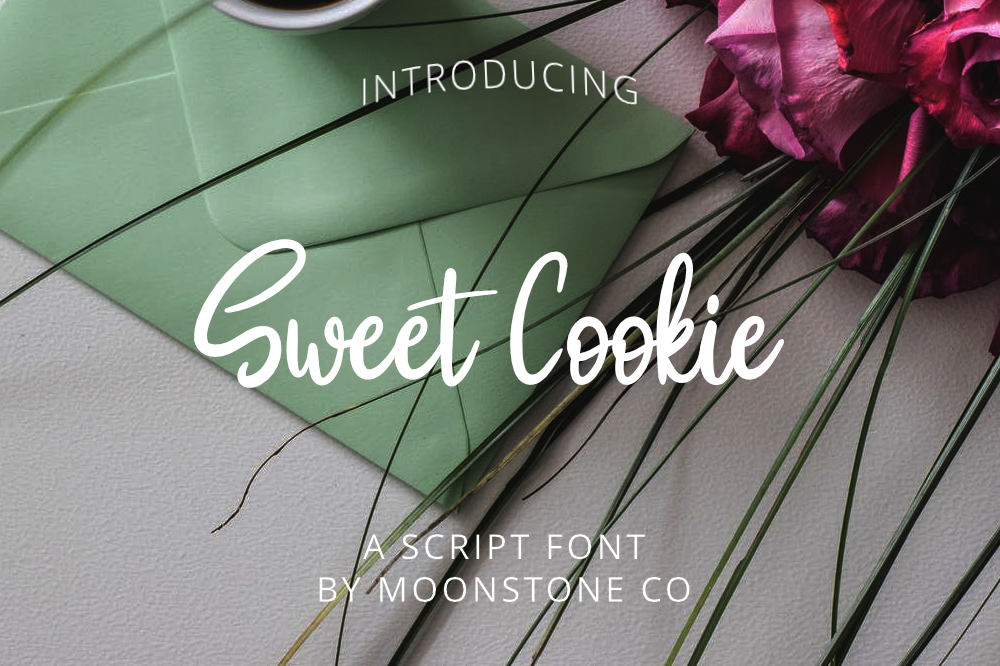
Sweet Cookie Handwritten Script
Sweet Cookie Script is Elegant handwritten script. This font is great for Branding, Logo
Design, Lettering,Logotype, Clothing, Poster, magazine and other design
project.